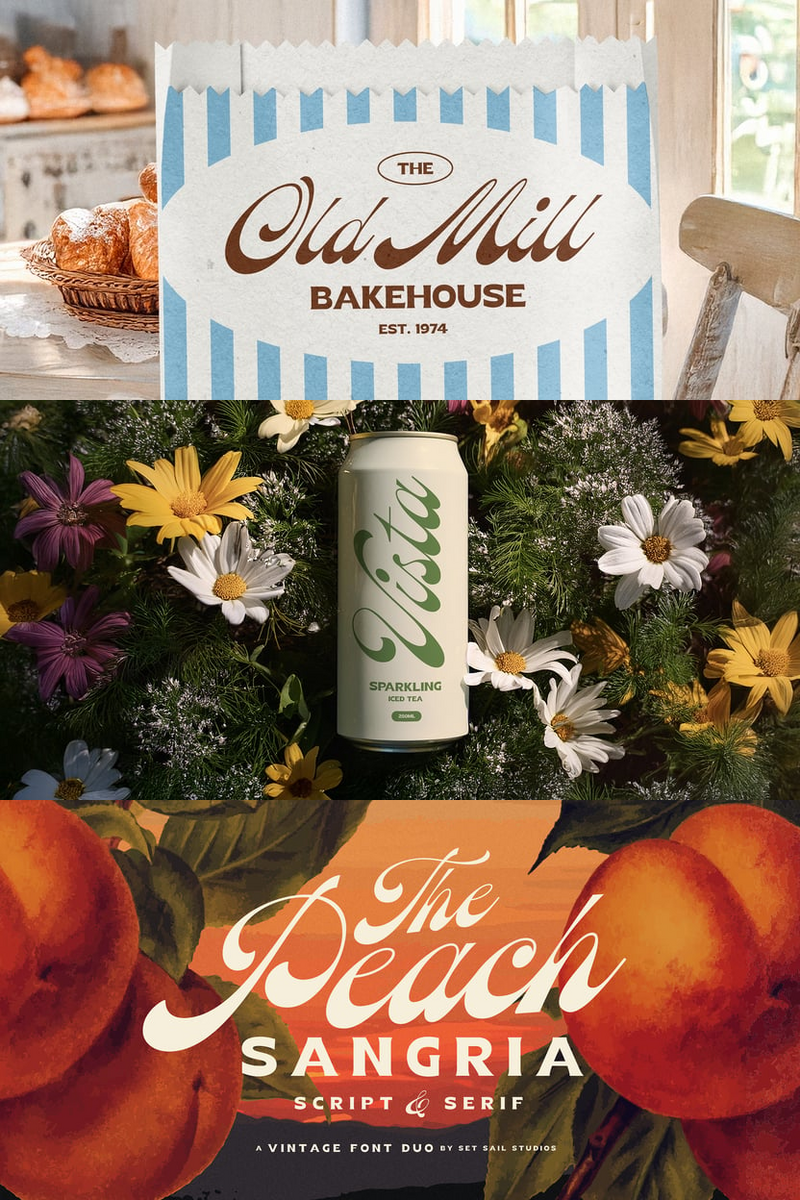
Peach Sangria: Adaptive Type for SaaS, Powering Headlines like 'Innovate' and 'Grow'
In the fast-evolving landscape of Tech and SaaS, your brand's visual identity is more than just a logo; it's a living language. It needs to speak with clarity, confidence, and consistency across every digital touchpoint. This requires a typeface that doesn't just look good but performs flawlessly under pressure. Enter Peach Sangria, the font engineered for your dynamic digital world.
Peach Sangria isn't just a collection of glyphs; it's a sophisticated chameleon. It masterfully blends modern minimalism with an underlying warmth, crafting a unique presence that's both professional and approachable. Its clean lines and balanced proportions ensure a sleek elegance, while subtle humanistic touches prevent it from feeling sterile. This is the visual handshake that tells your users and stakeholders: "We are innovative, precise, and deeply invested in your experience."
Imagine a scenario familiar to many Tech and SaaS companies: your product is scaling, new features are rolling out weekly, and your marketing campaigns are reaching global audiences. Suddenly, your current typeface struggles to keep pace. Headlines feel disjointed on mobile, complex data dashboards lack a clear visual hierarchy, and brand consistency across your website, app, and email campaigns begins to fray. This is precisely where Peach Sangria shines. Designed with inherent versatility, it effortlessly navigates complex information architectures and dynamic content. Its adaptable weights and thoughtful spacing ensure seamless readability, whether it's a critical error message or a compelling feature announcement.
Peach Sangria stands out by delivering unparalleled versatility and adaptability, ensuring your message is not just seen, but intrinsically understood.
- Unified Brand Identity: Maintain a cohesive, professional look across every single touchpoint—from sleek website headers to intricate app UI, reinforcing trust and professionalism at scale.
- Enhanced UX & Readability: Optimized for digital screens, its balanced forms reduce eye strain, making complex data and long-form content digestible and engaging for every user.
- Effortless Scalability: From micro-text in interactive dashboards to bold marketing headlines, Peach Sangria performs beautifully at any size, adapting without losing character, legibility, or impact.
- Modern Aesthetic: A clean, contemporary design that aligns perfectly with the innovative, forward-thinking spirit of Tech and SaaS, projecting sophistication and a commitment to progress.
Peach Sangria: Adapt Your Message. Define Your Digital.
Envision Peach Sangria anchoring your next product launch with bold, clear headlines on your landing page. Picture its subtle elegance guiding users seamlessly through your app's onboarding flow. See it bringing crystal clarity to complex analytics in a data dashboard, or adding a touch of modern sophistication to your investor pitch decks. This is a font crafted not just to exist, but to empower your entire digital ecosystem and enhance every user interaction.